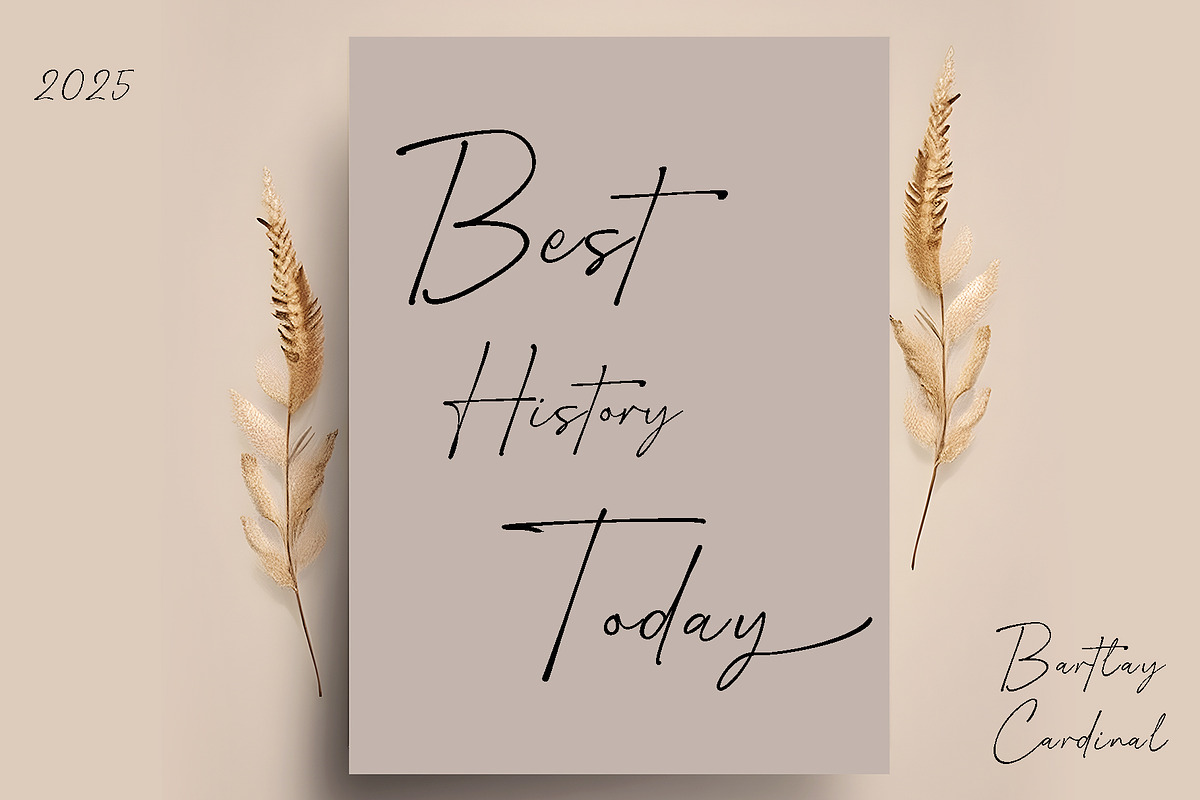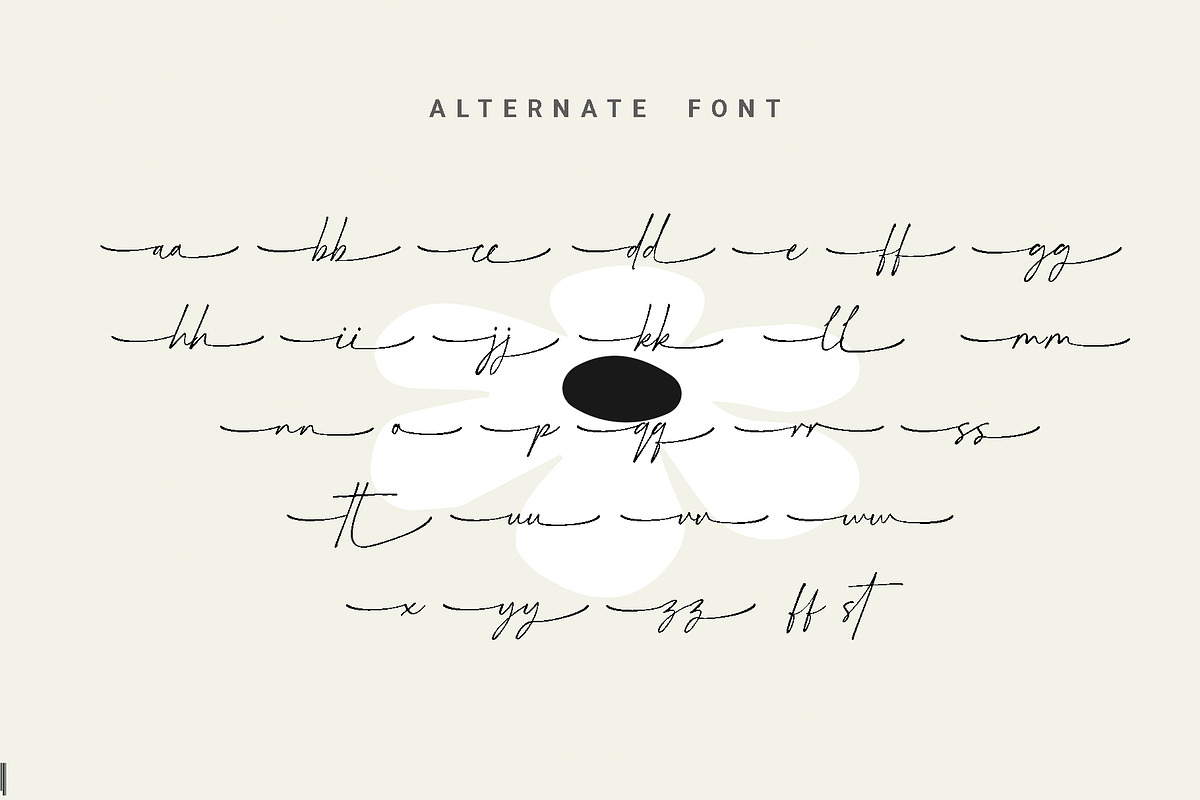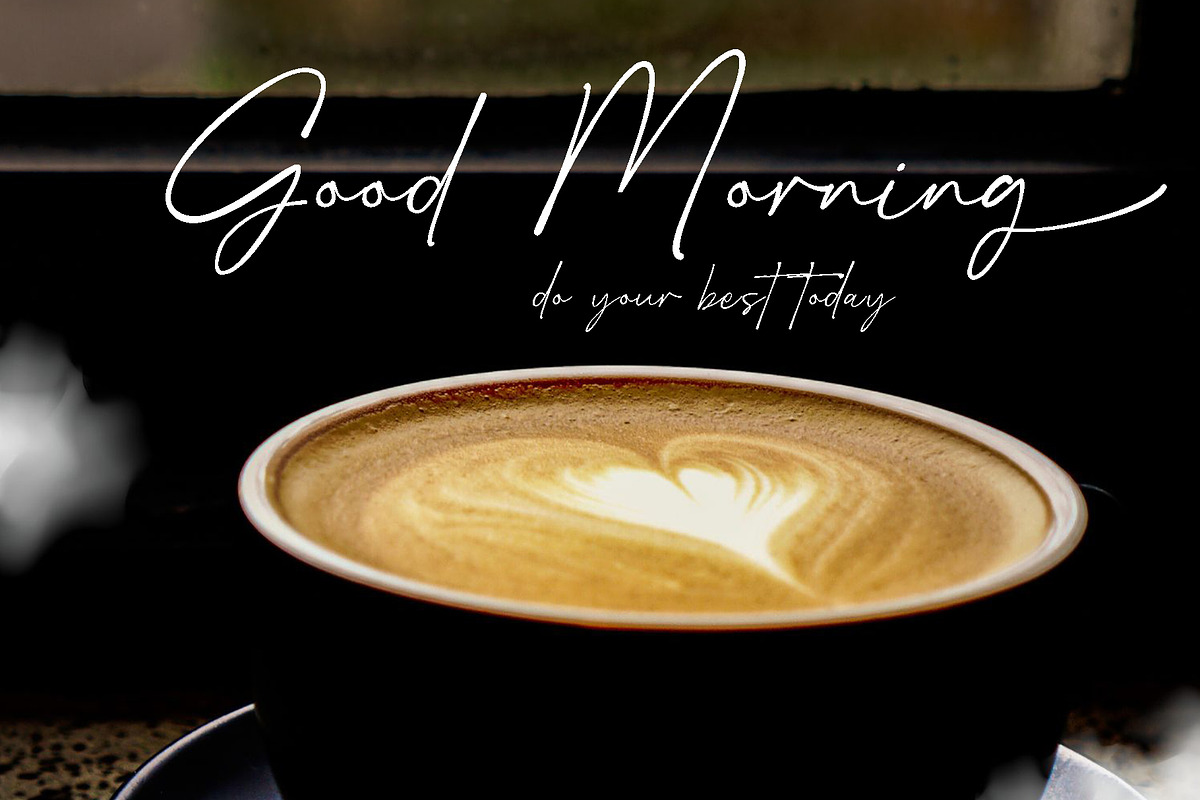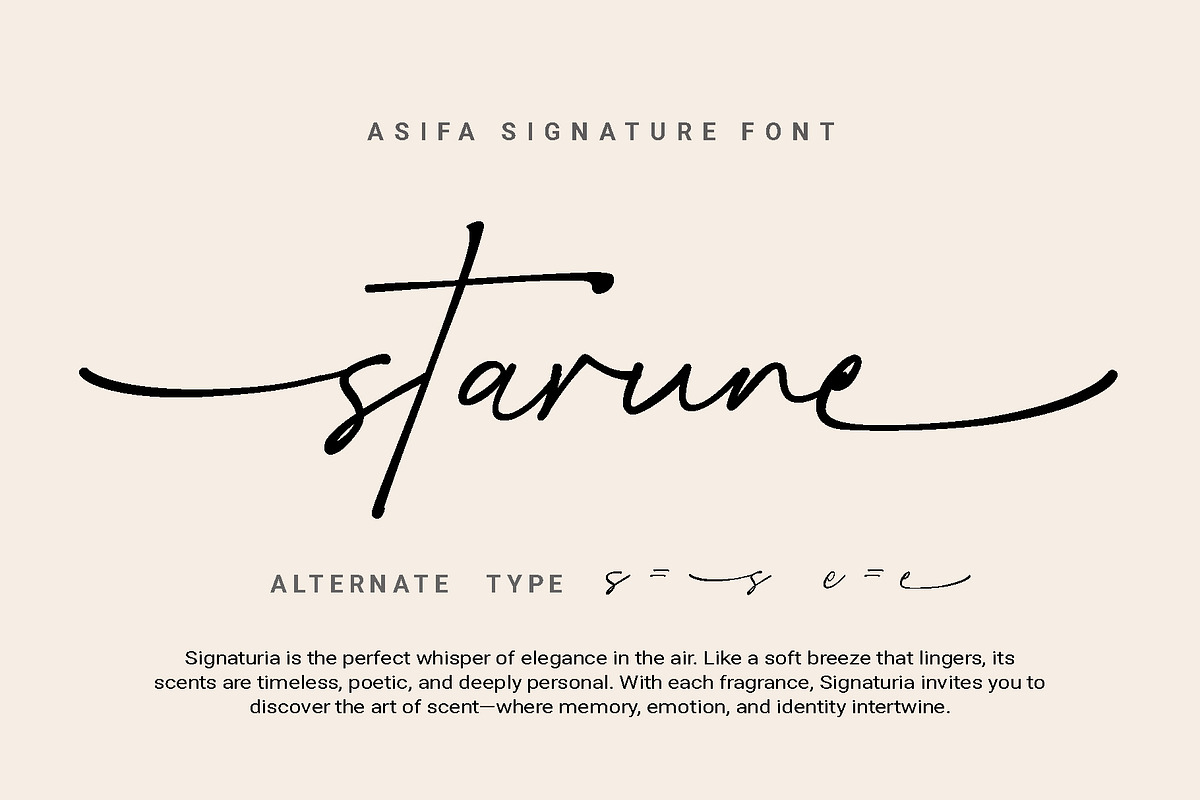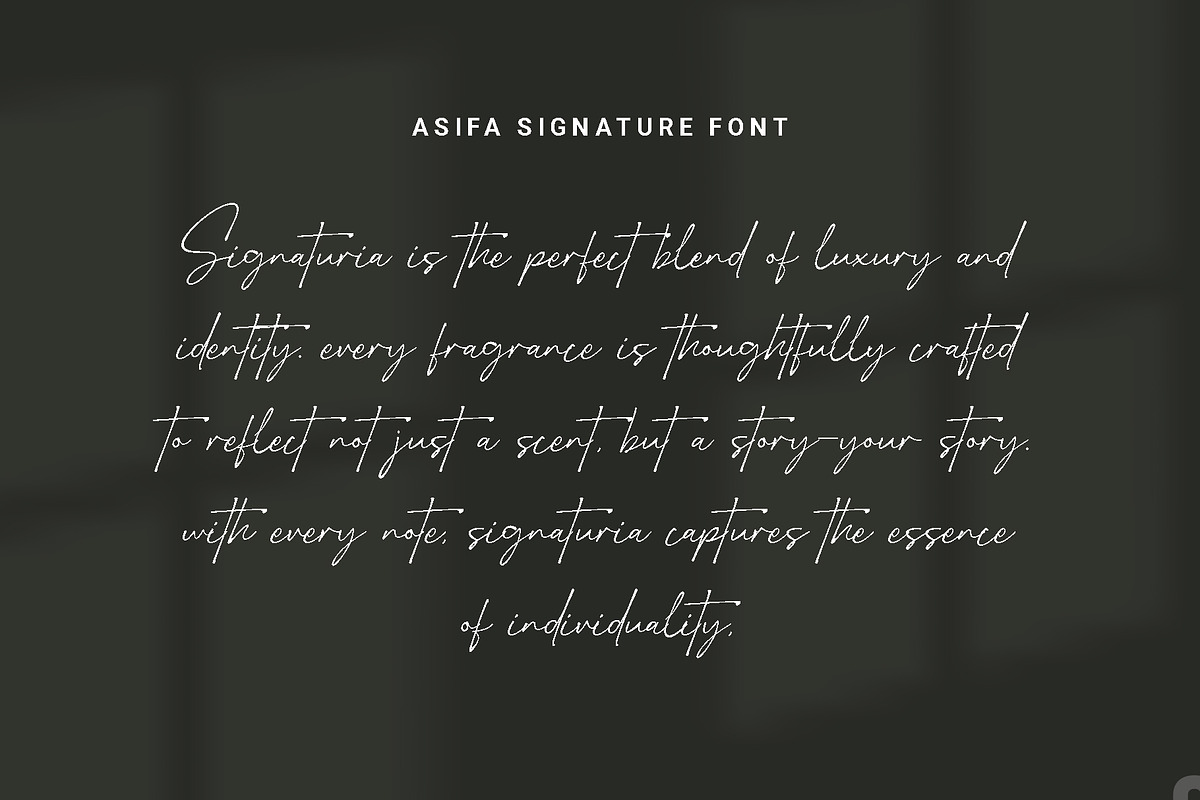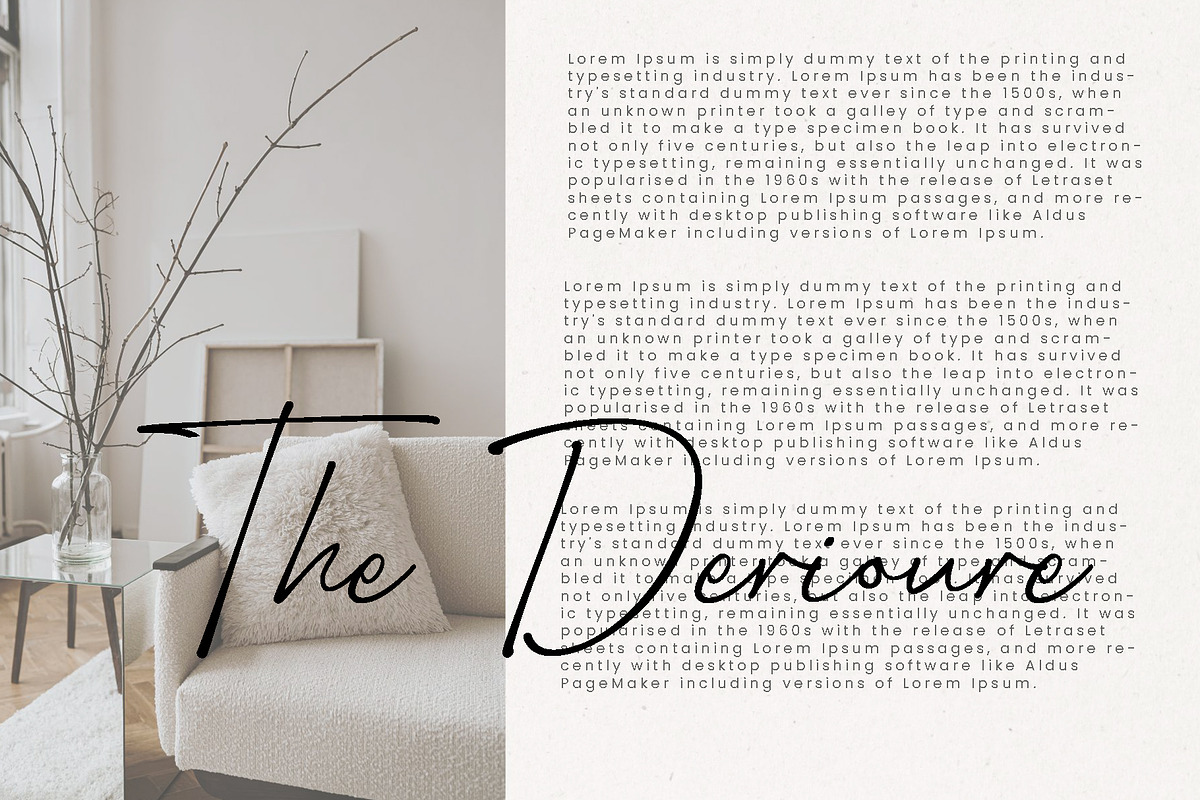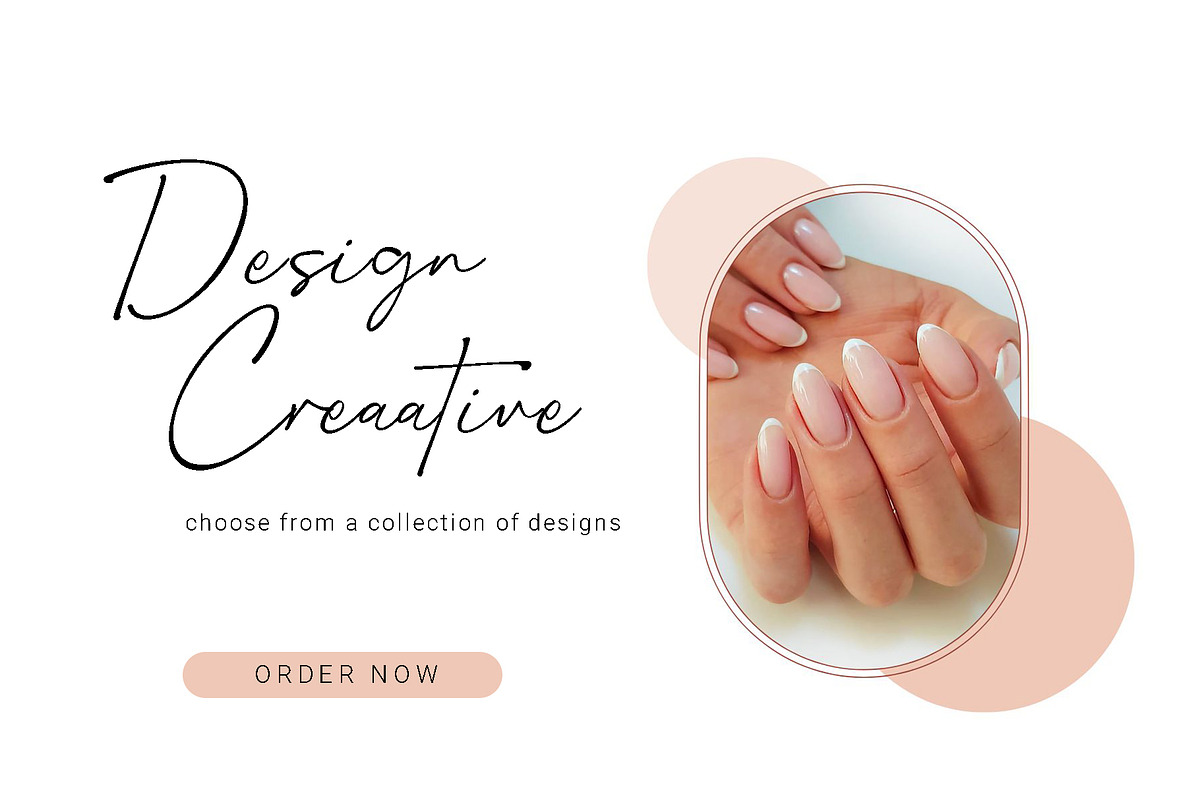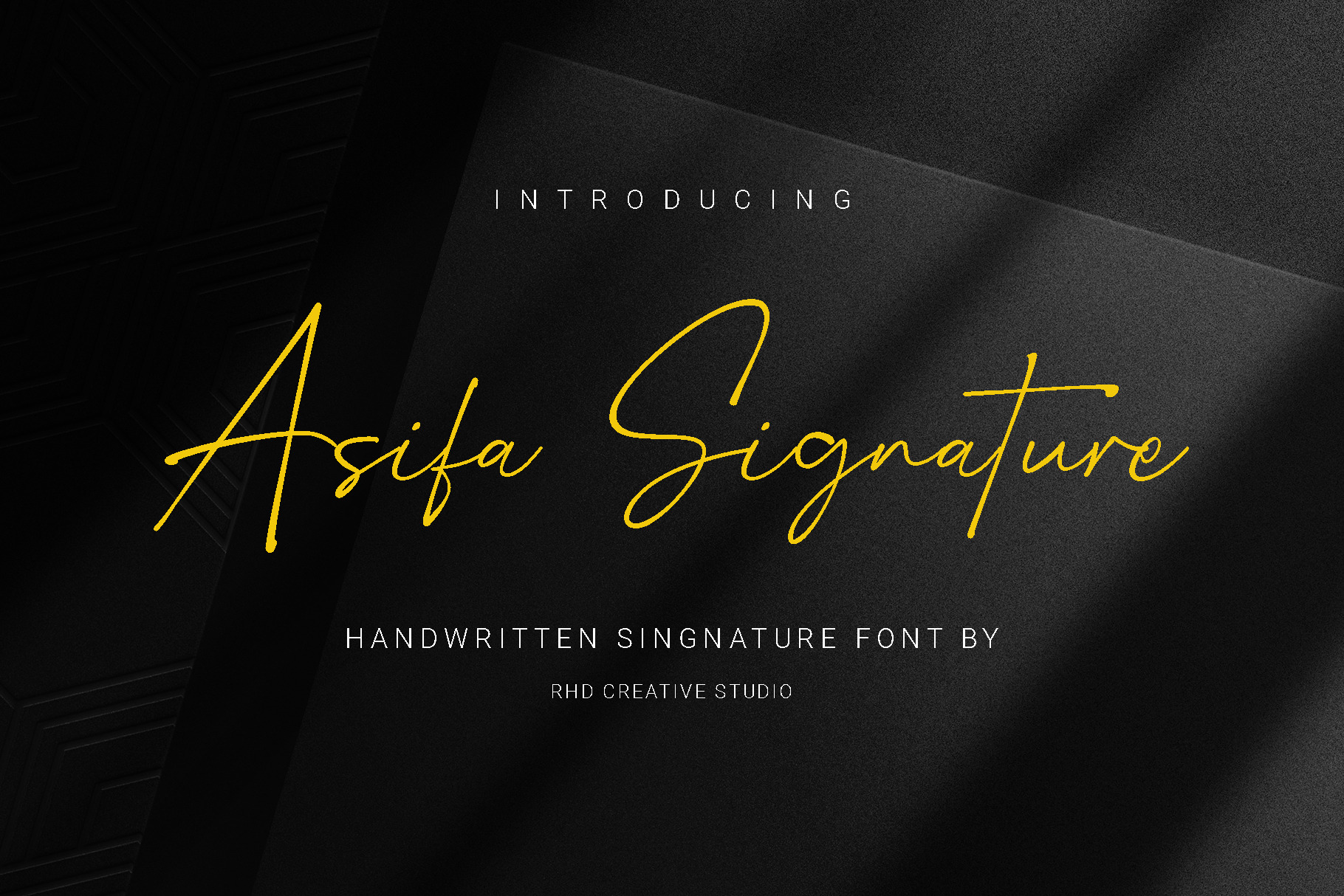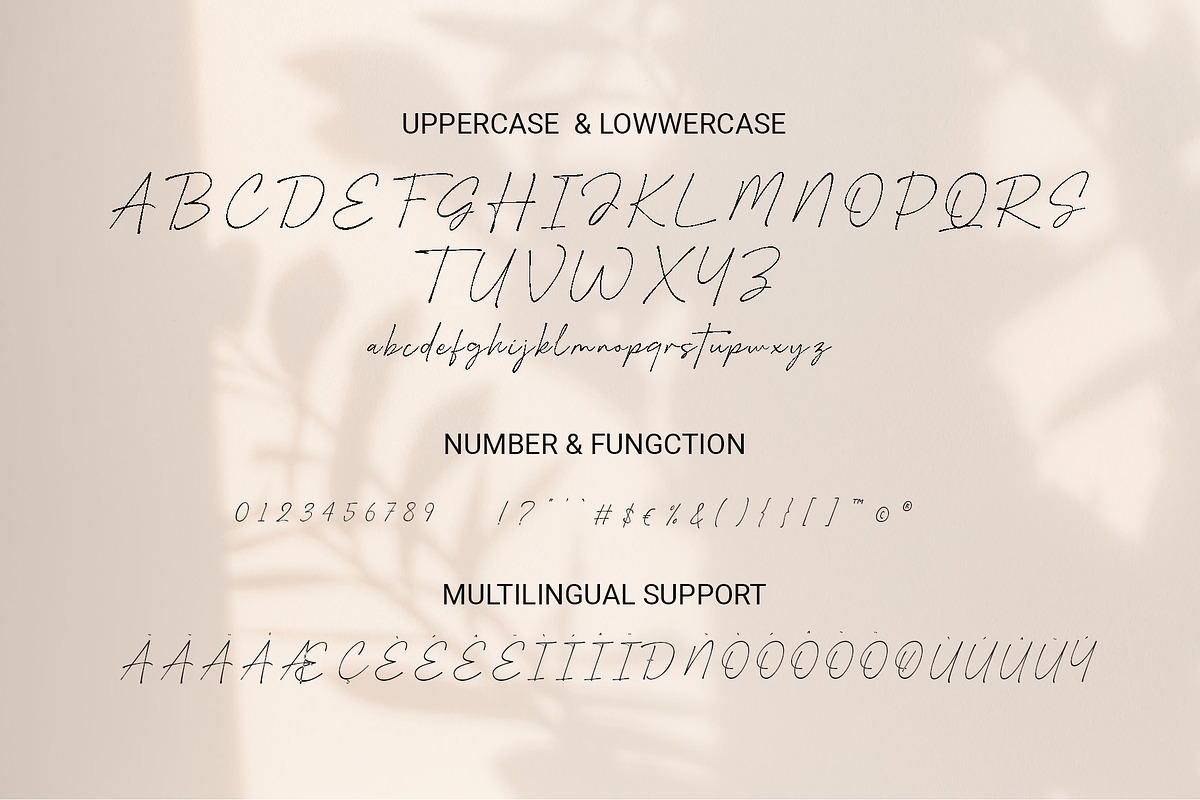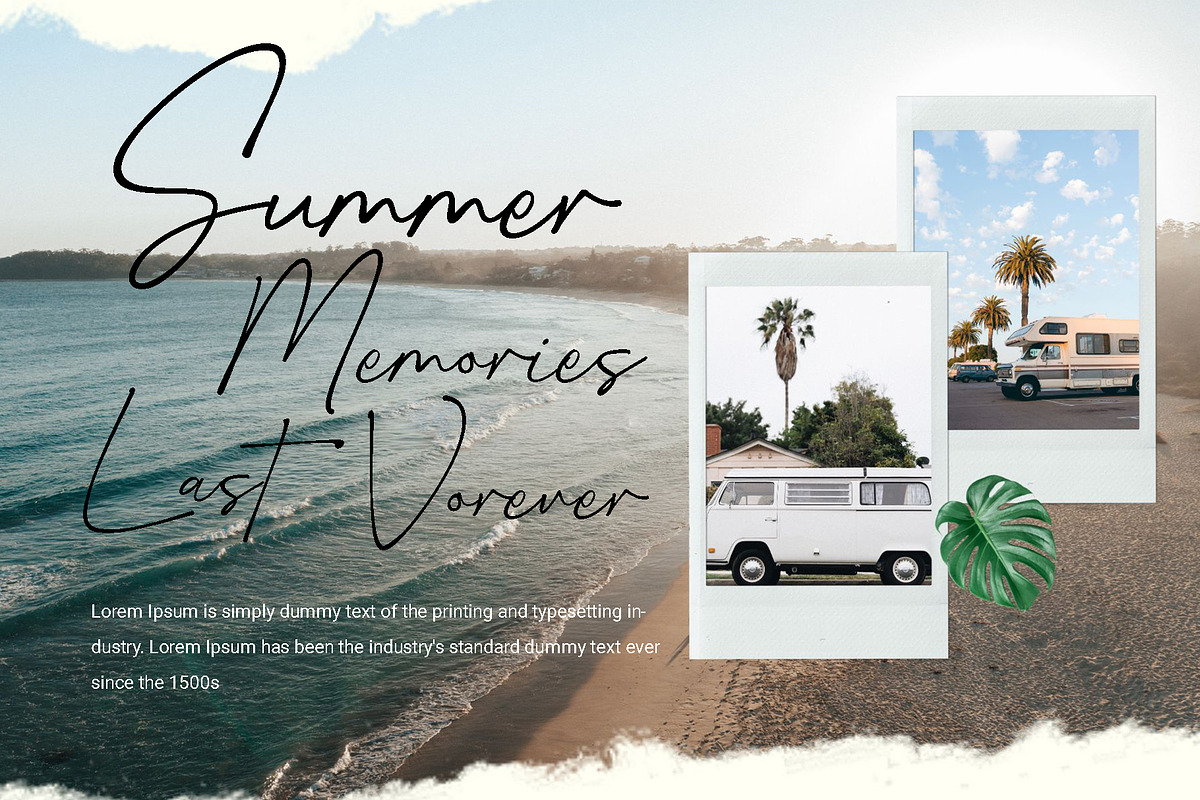
Asifa Signature - Handwritten Font
Hello everyone, I would like to introduce Asifa Signature - Handwritten Signature Font.
Asifa Signature - Handwritten Signature Font with Handmade character. Asifa Signature - Handwritten Signature Font , Modern font to make your design project stand out! Asifa Signature is a perfectly choice for any creative endeavor, creating, modern, chic, lifestyle design such as logotype, title, cover, branding, invitations, wedding designs, display and magazine, social media posts, advertisements, printed quotes, product packaging, corporate brand, product designs, labels, photography, watermarks, special events and any other project with modern touch.